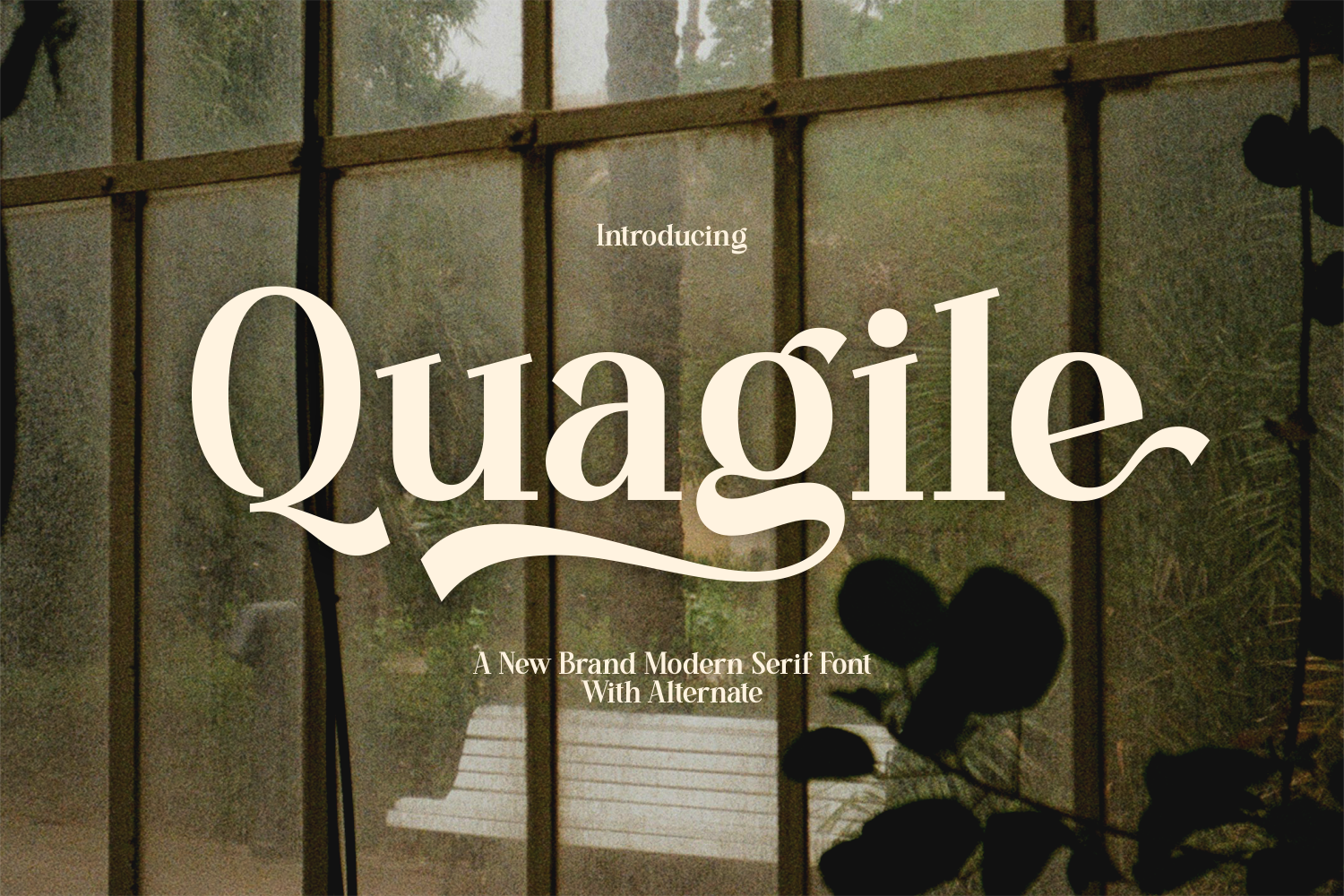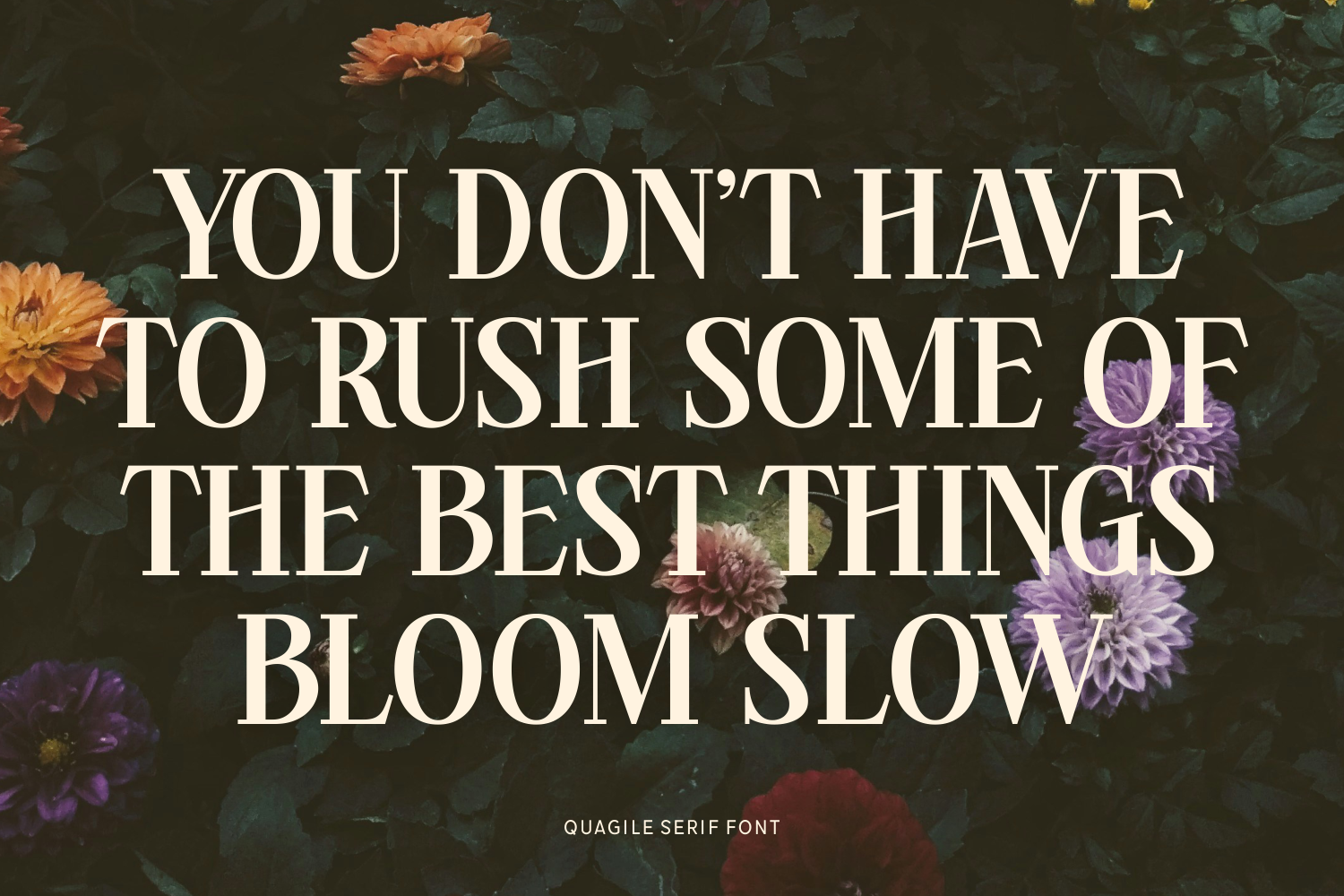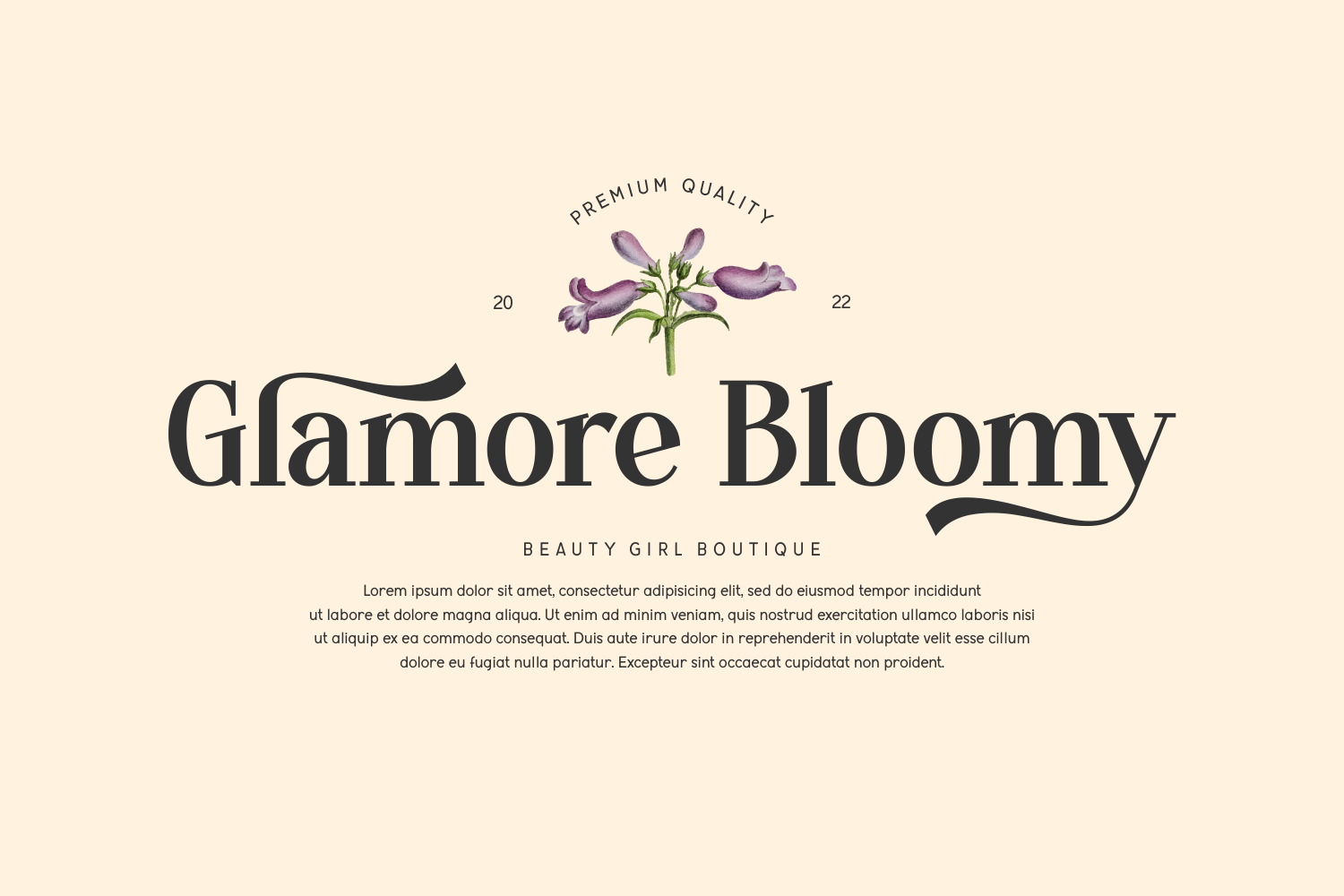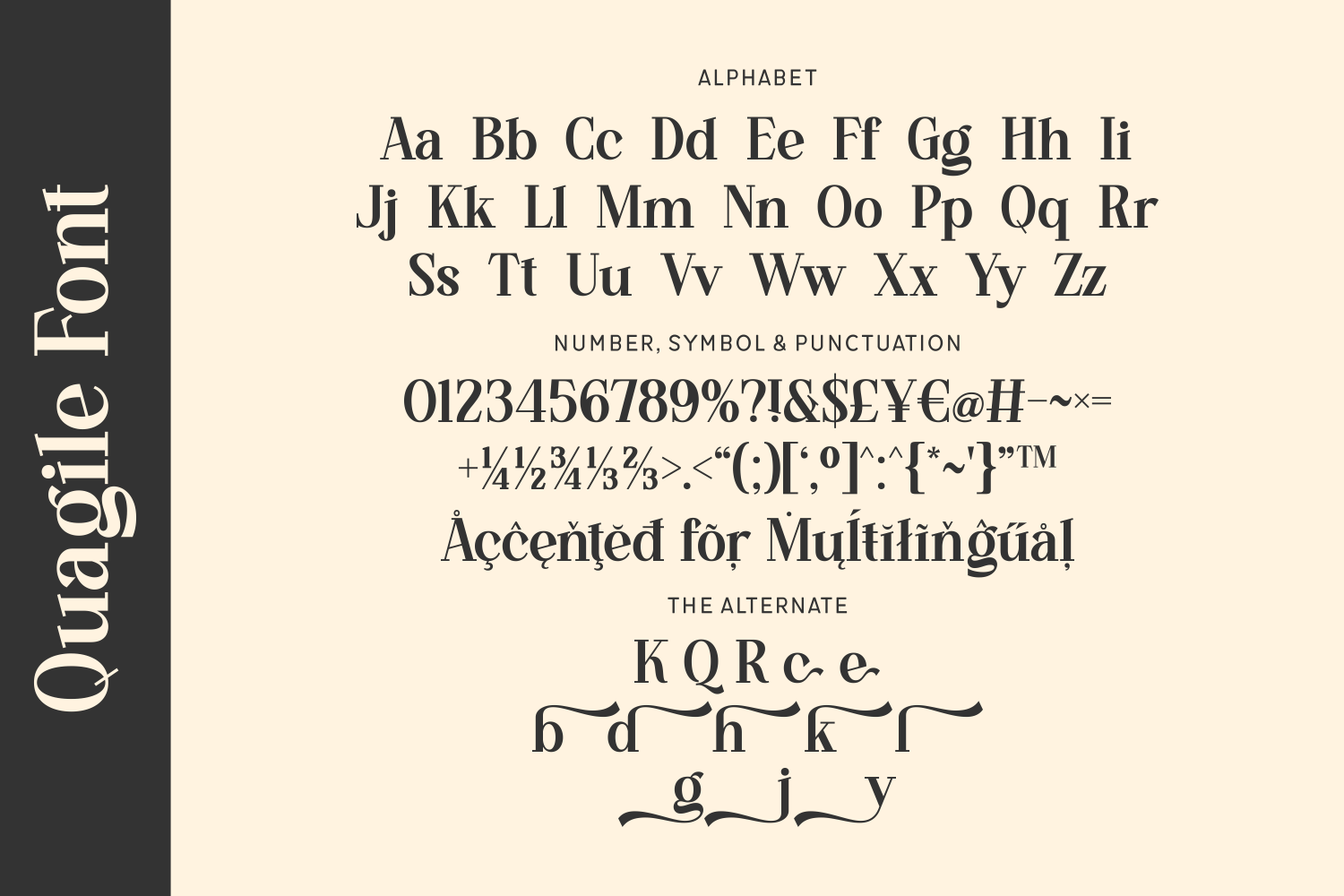
Quagile is a distinctive modern serif font with flowing alternates and elegant curves. Its stylish swashes and smooth transitions make it a perfect choice for branding, luxury packaging, high-end fashion editorials, and social media graphics. Quagile’s expressive form captures attention while retaining legibility, making it ideal for standout designs with a personal touch.